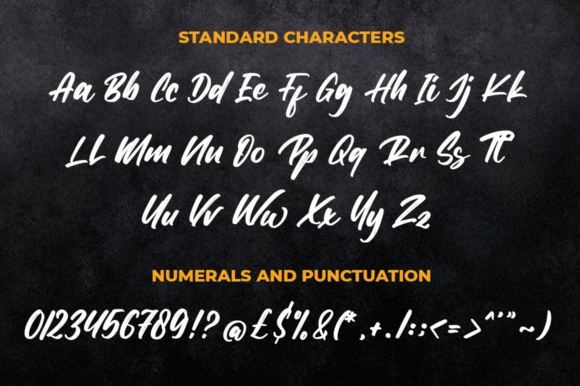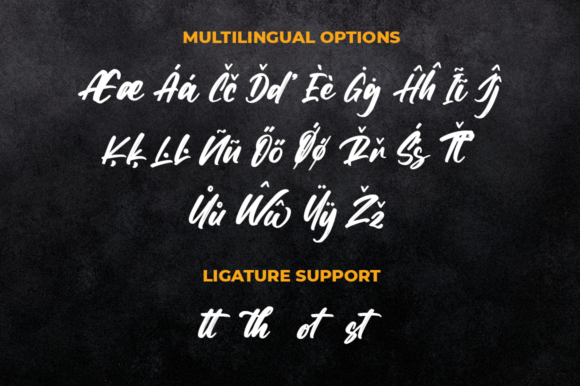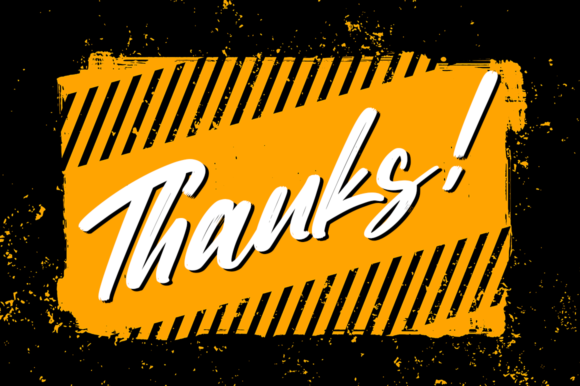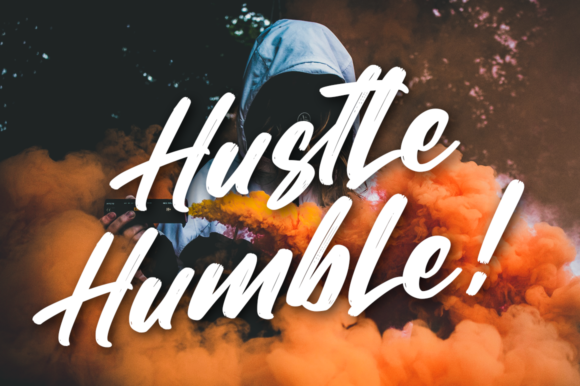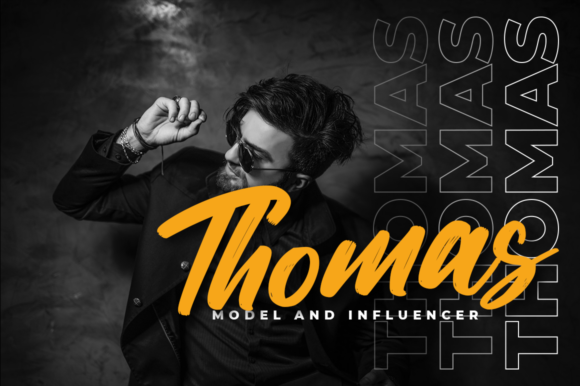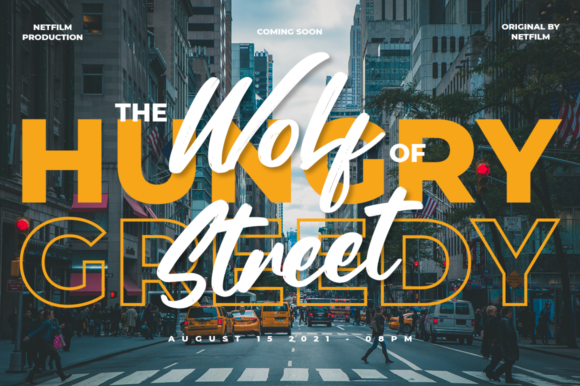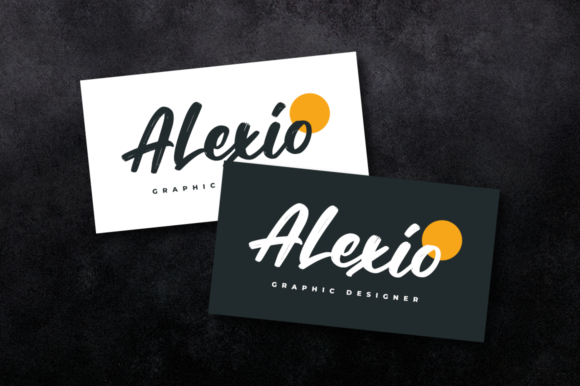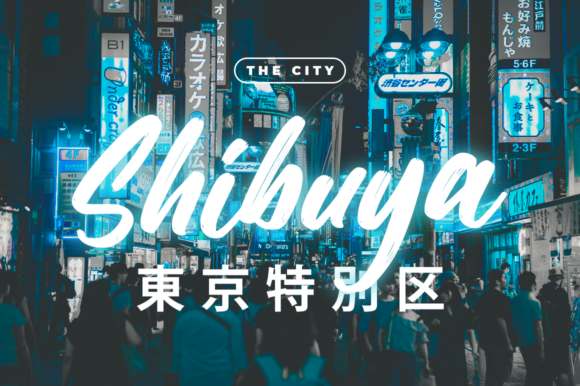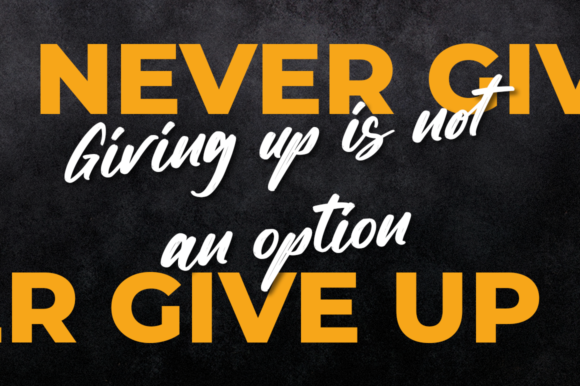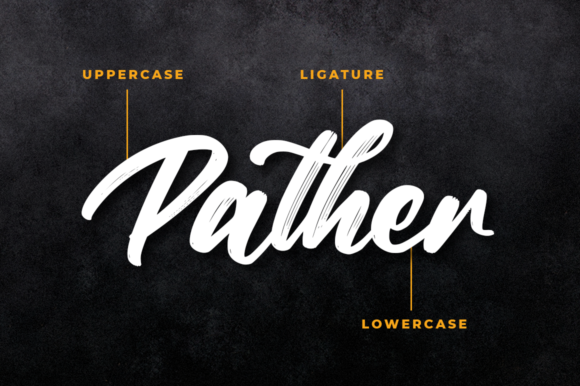
Thunder Font
About Thunder Font
“Thunder” is a modern and chunky handwritten font that brings a bold and contemporary touch to your designs. With its versatile style, this font is suitable for a wide range of applications, making it a valuable asset for various design projects.
The strong and prominent letterforms of “Thunder” make it an ideal choice for branding and logo designs. Its bold and chunky appearance commands attention and creates a striking visual impact. Whether you’re creating a logo for a new business or rebranding an existing one, “Thunder” can help you achieve a modern and eye-catching look.
Product packaging is another area where “Thunder” shines. Its bold and chunky letterforms can instantly draw attention to your products and make them stand out on the shelves. Whether it’s for food and beverage packaging, cosmetics, or any other consumer goods, “Thunder” adds a contemporary and memorable touch.
Invitations and event materials also benefit from the modern and versatile style of “Thunder.” Whether it’s for weddings, parties, or corporate events, this font brings a fresh and engaging look to your designs. Its bold and chunky appearance adds a touch of excitement and sets the tone for a memorable event.
Quotes and inspirational messages are elevated with the impactful presence of “Thunder.” Its bold and chunky letterforms help emphasize the words and capture attention, making them more memorable and impactful. Whether it’s for social media posts, prints, or posters, “Thunder” adds a modern and dynamic touch to your motivational designs.
Apparel designs, including t-shirts and labels, can benefit from the contemporary and bold look of “Thunder.” Its chunky letterforms make a strong statement, allowing your designs to stand out and make a lasting impression. Whether it’s for streetwear, casual wear, or any other fashion-related projects, “Thunder” brings a modern and edgy vibe.
Posters and promotional materials can also benefit from the adaptable nature of “Thunder.” Its bold and chunky style helps create attention-grabbing designs that communicate your message effectively. Whether it’s for event promotions, advertisements, or any other visual communications, “Thunder” adds a modern and energetic touch.
Overall, “Thunder” is a versatile font that adapts well to various design projects. Its modern and chunky appearance brings a contemporary and bold look to your creations, making them visually appealing and memorable. From branding to packaging, invitations to quotes, t-shirts to posters, “Thunder” is a valuable tool to create impactful designs.